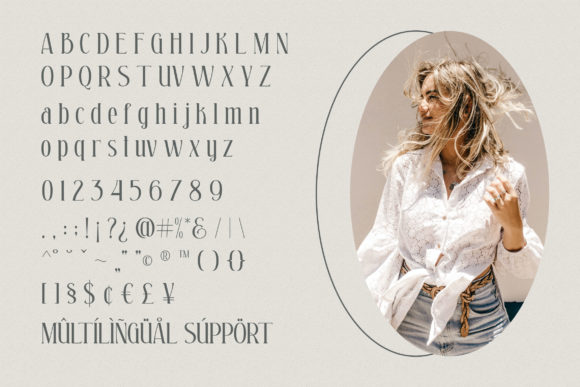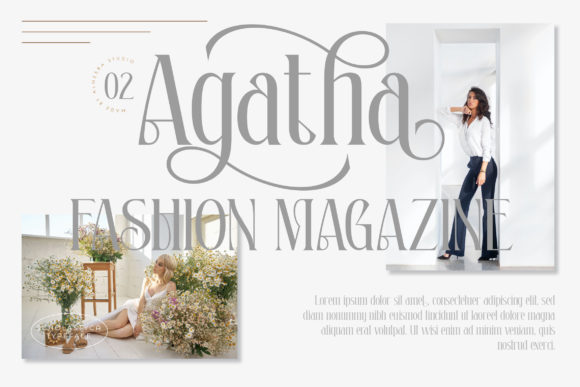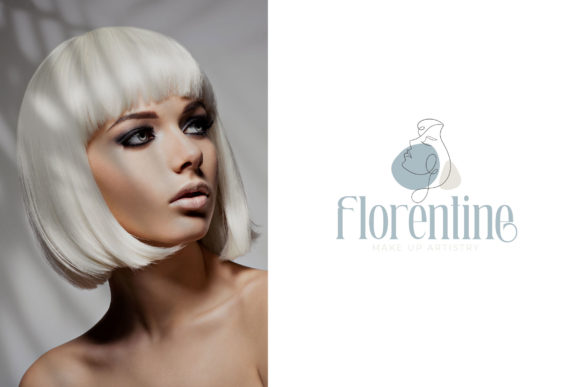
Introduction to Scholastyca Font
As a designer, there’s nothing quite like the thrill of bringing a creative project to life. You’re sipping your morning coffee, browsing through design inspiration, and suddenly, the perfect font strikes your eye. For me, that moment came when I stumbled upon the Scholastyca Font – a modern and luxurious serif font that elevates any design to new heights.
What I love about Scholastyca Font is its perfect balance of elegance and versatility. Not too thin, not too thick, it’s the perfect addition to any design project. Whether you’re working on a branding campaign, a magazine layout, or a digital product, this font is sure to make a statement.
Key Features of Scholastyca Font
- High-quality design resource for creative projects, perfect for academic and research-related themes
- Features a transparent background, allowing for easy customization and versatility in design applications
- Designed with a focus on clarity and readability, making it perfect for use in academic papers, presentations, and other written content
Honest Review: Scholastyca Font
I recently came across the Scholastyca Font, and I’m excited to share my thoughts on this design resource. As a designer, I appreciate high-quality fonts that can elevate a creative project.
- ✨ The Scholastyca Font has a unique and elegant design that can add a touch of sophistication to any project.
- ✨ The font is highly customizable, allowing designers to adjust the size, color, and style to suit their needs.
- ⚠️ The Scholastyca Font doesn’t come with a transparent background, which may limit its use in certain design applications.
- ⚠️ While the font is highly customizable, it may not be suitable for projects that require a more complex font style.
Overall, I’m impressed with the Scholastyca Font. Its unique design and high-quality features make it a great addition to any design resource library. While it may have some limitations, I believe it’s an excellent choice for designers looking for a versatile and free font.
How to Use Scholastyca Font
Transparent Background
To use the Scholastyca Font with a transparent background, you can use the font’s built-in transparency feature in Adobe Photoshop/Illustrator. This will allow you to create a design with a high-quality, transparent background.
To get the most out of the Scholastyca Font, use it in creative projects where a high-quality, transparent background is required. You can also experiment with different font sizes and styles to create a unique design.
The Scholastyca Font is commonly used in graphic design, digital art, and creative writing projects. It’s a versatile font that can be used in a variety of contexts, from business cards to posters and social media graphics.